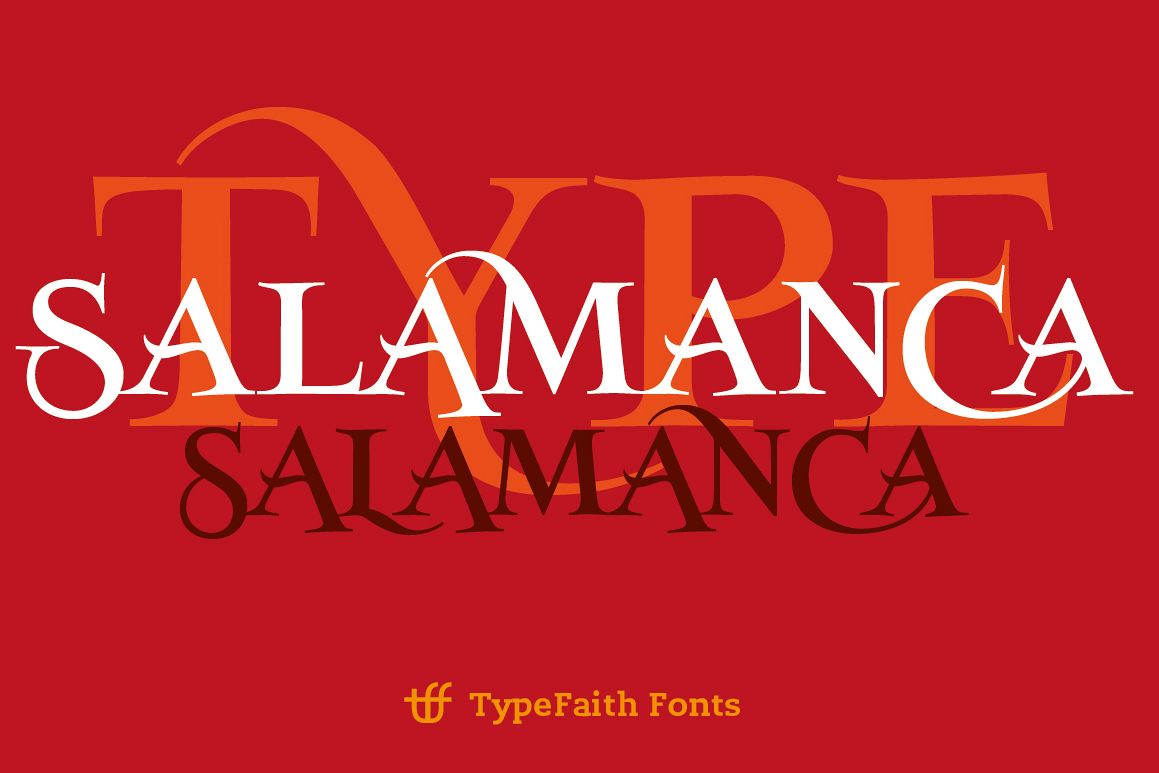
Salamanca TF
SalamacaTF is a fun to use typeface. With the OpenType options or the glyphs palette you make your own special typo's. The font is based on the wall typography of the city of Salamanca. How to use OpenType see http://www.adobe.com/products/type/opentype.html.
This is an absolutely stunning font, really well drawn and very decorative, perfect for using in XVIII century style designs.